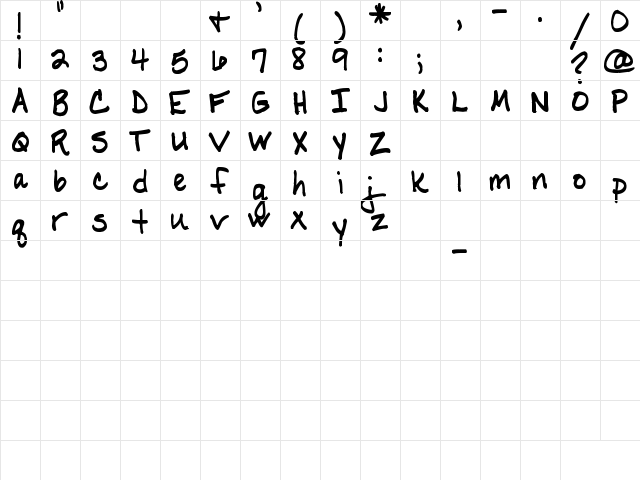
Pea Kristy Regular
Design Context for Pea Kristy Typeface
Pea Kristy is a composed and adaptable typeface that performs quietly and consistently across a wide range of design contexts.